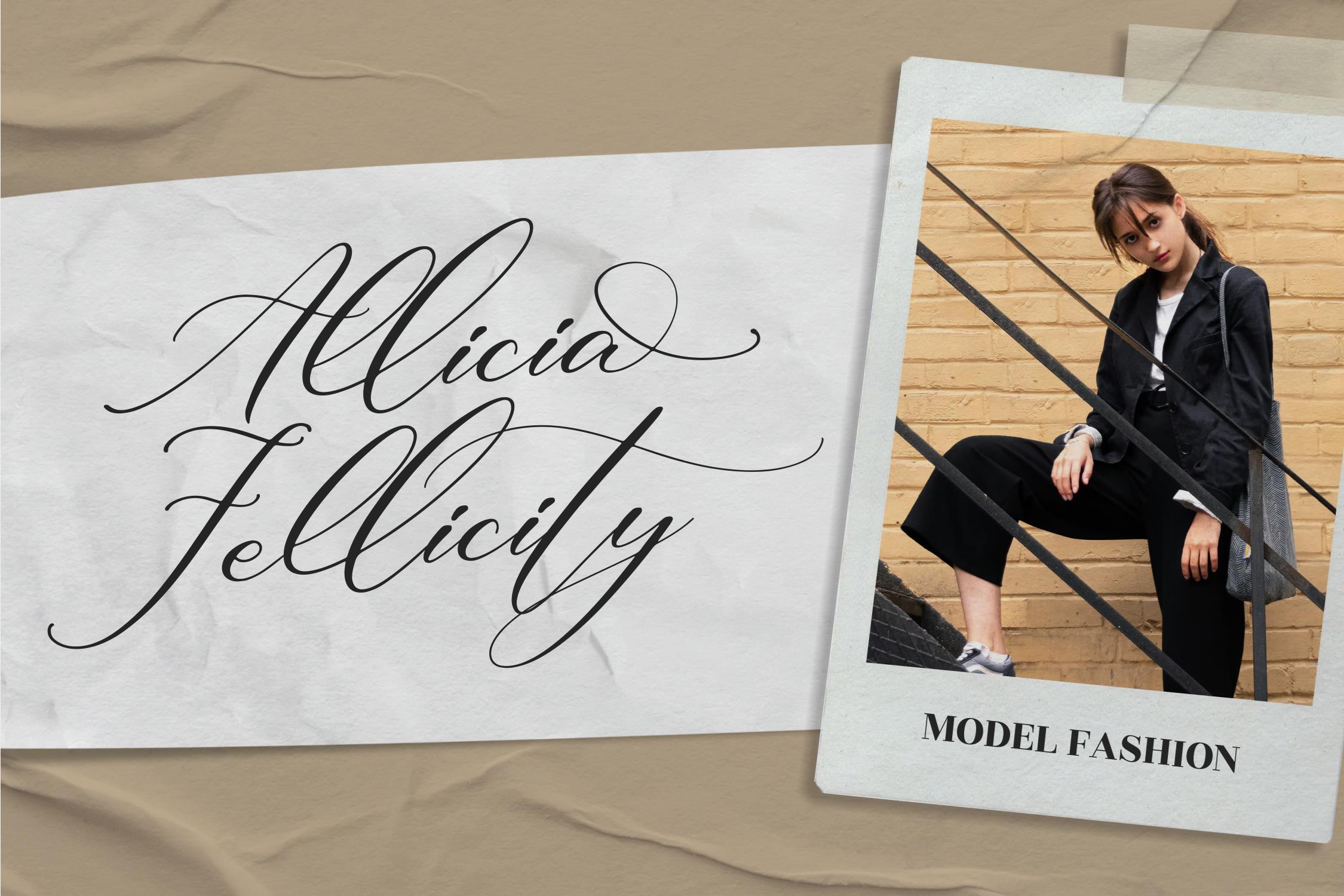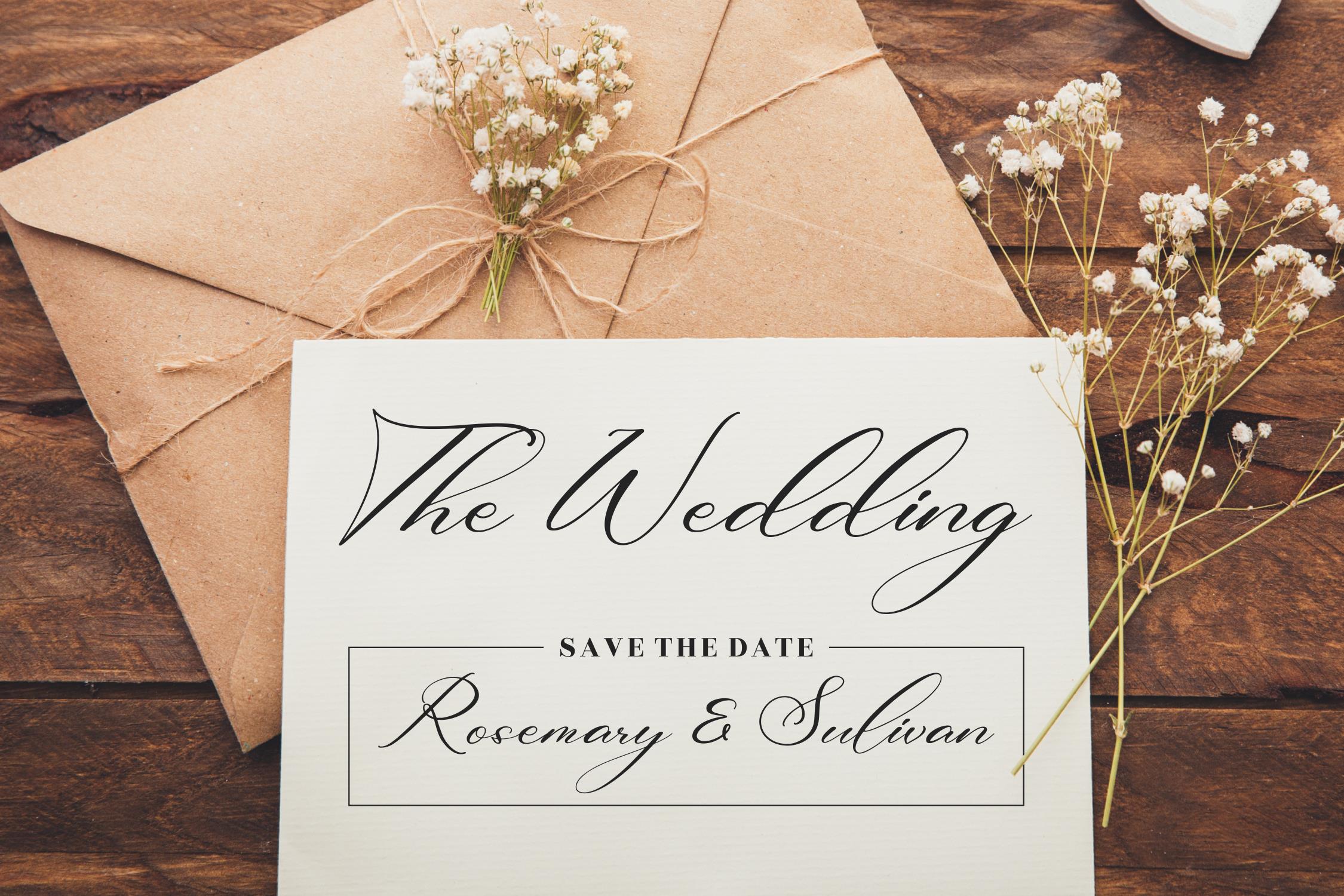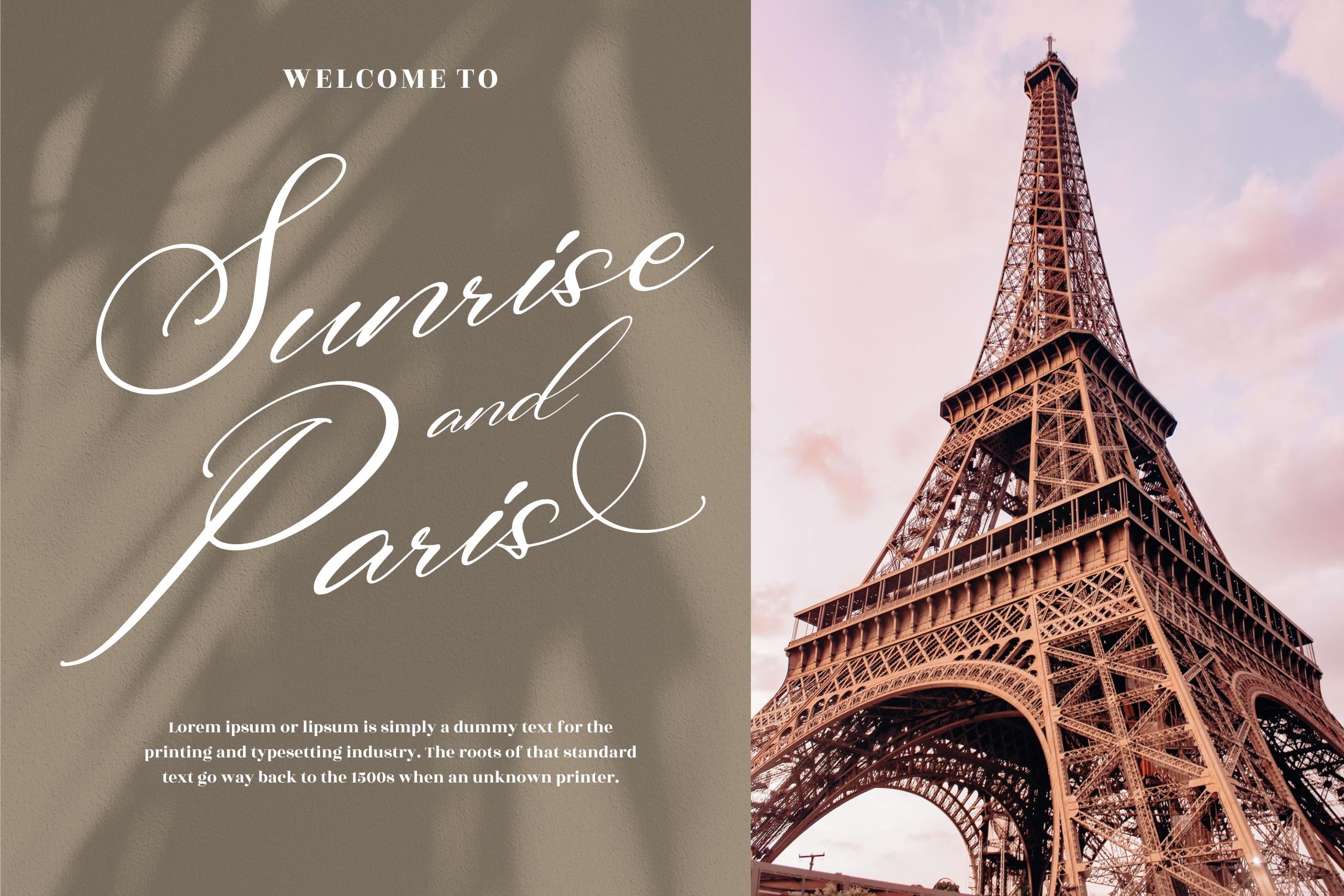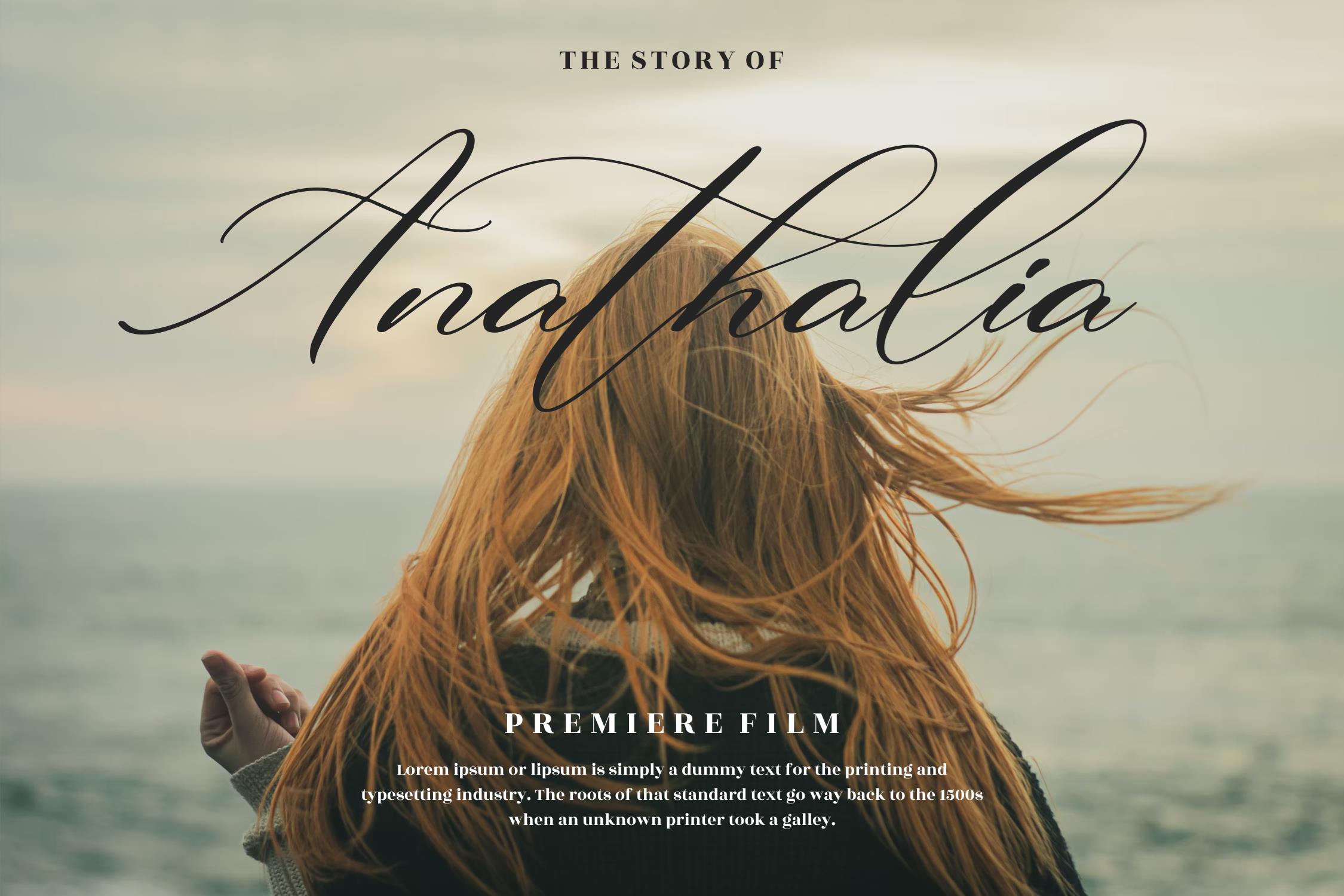
Beautilina Premium Font
Beautilina Premium Script Font
This is a beautiful script font, suitable for any projects such as: logos, branding projects, homeware designs, product packaging, mugs, quotes, posters, shopping bags, t-shirts, book covers, name card, invitation cards, greeting cards, label, photography, watermark, special events, and all your other lovely projects that need a beautiful script taste.